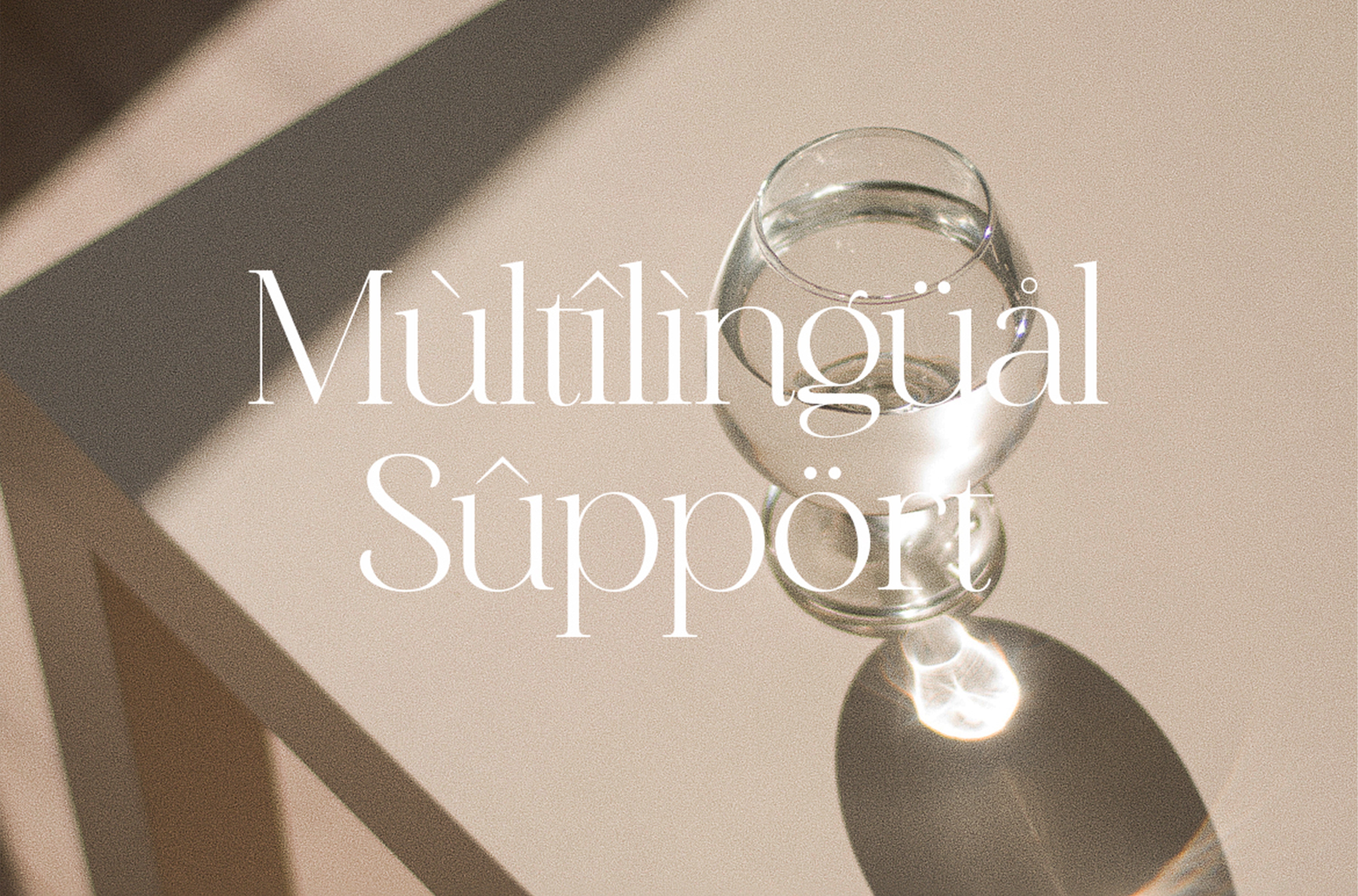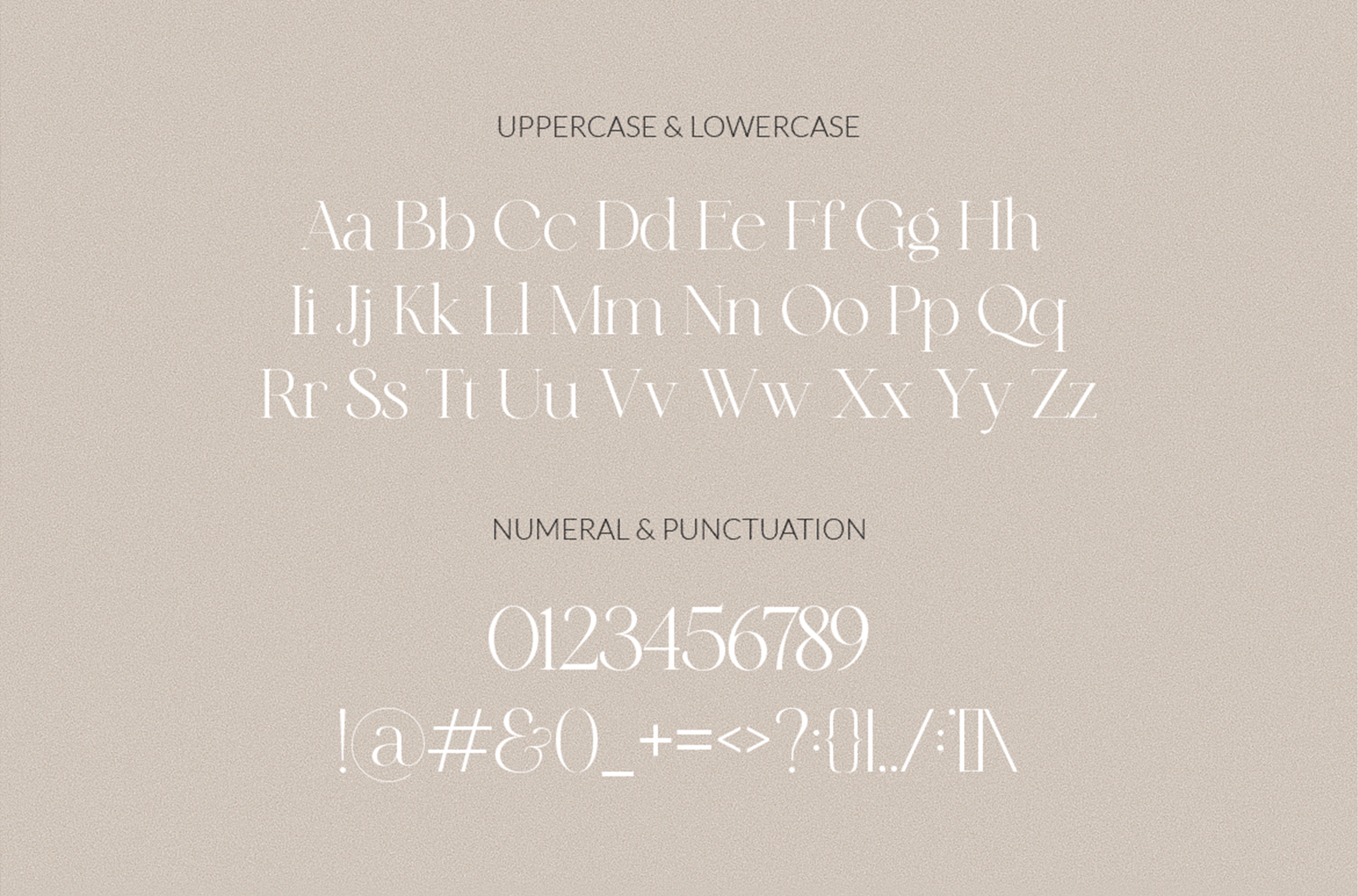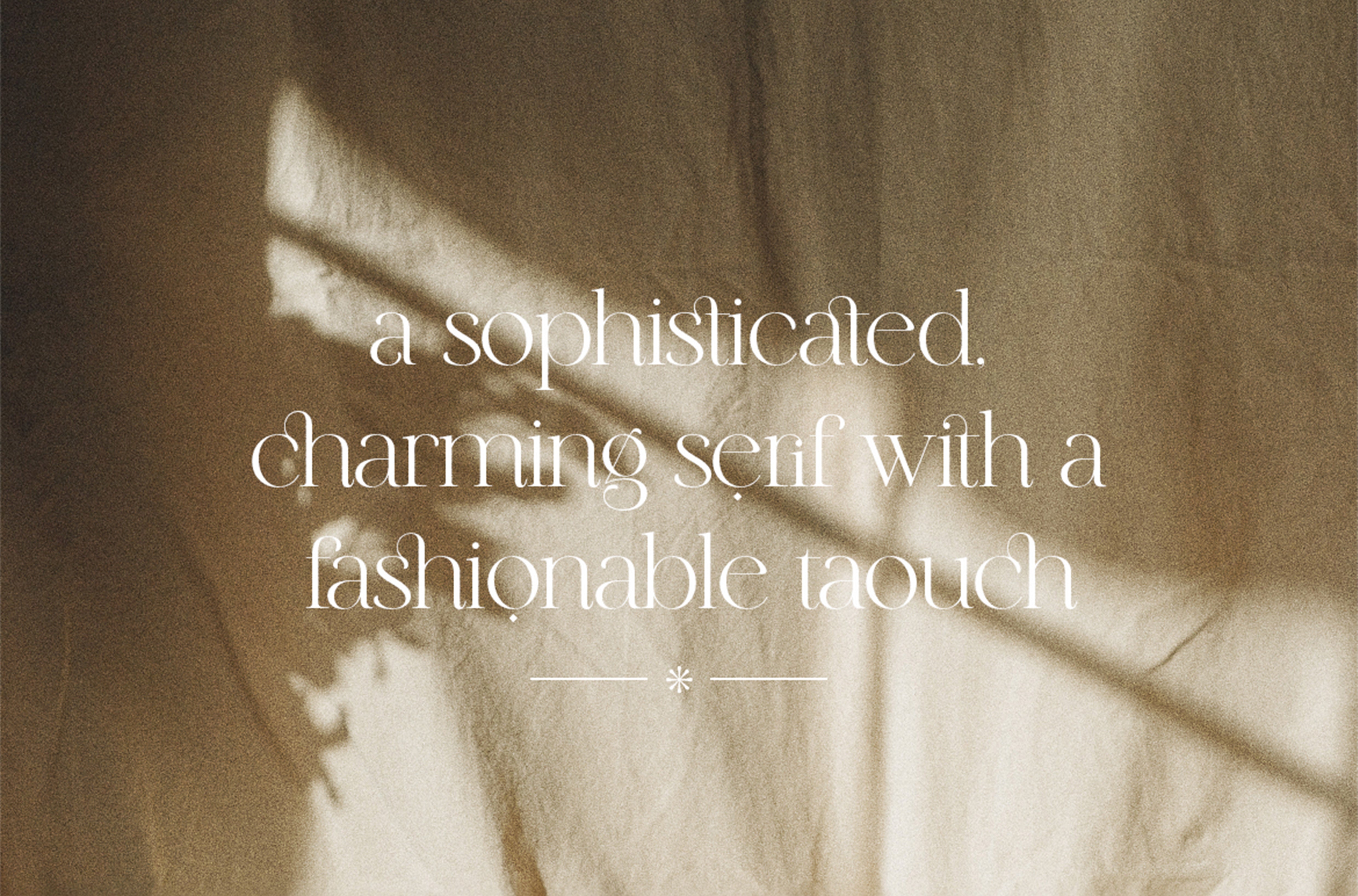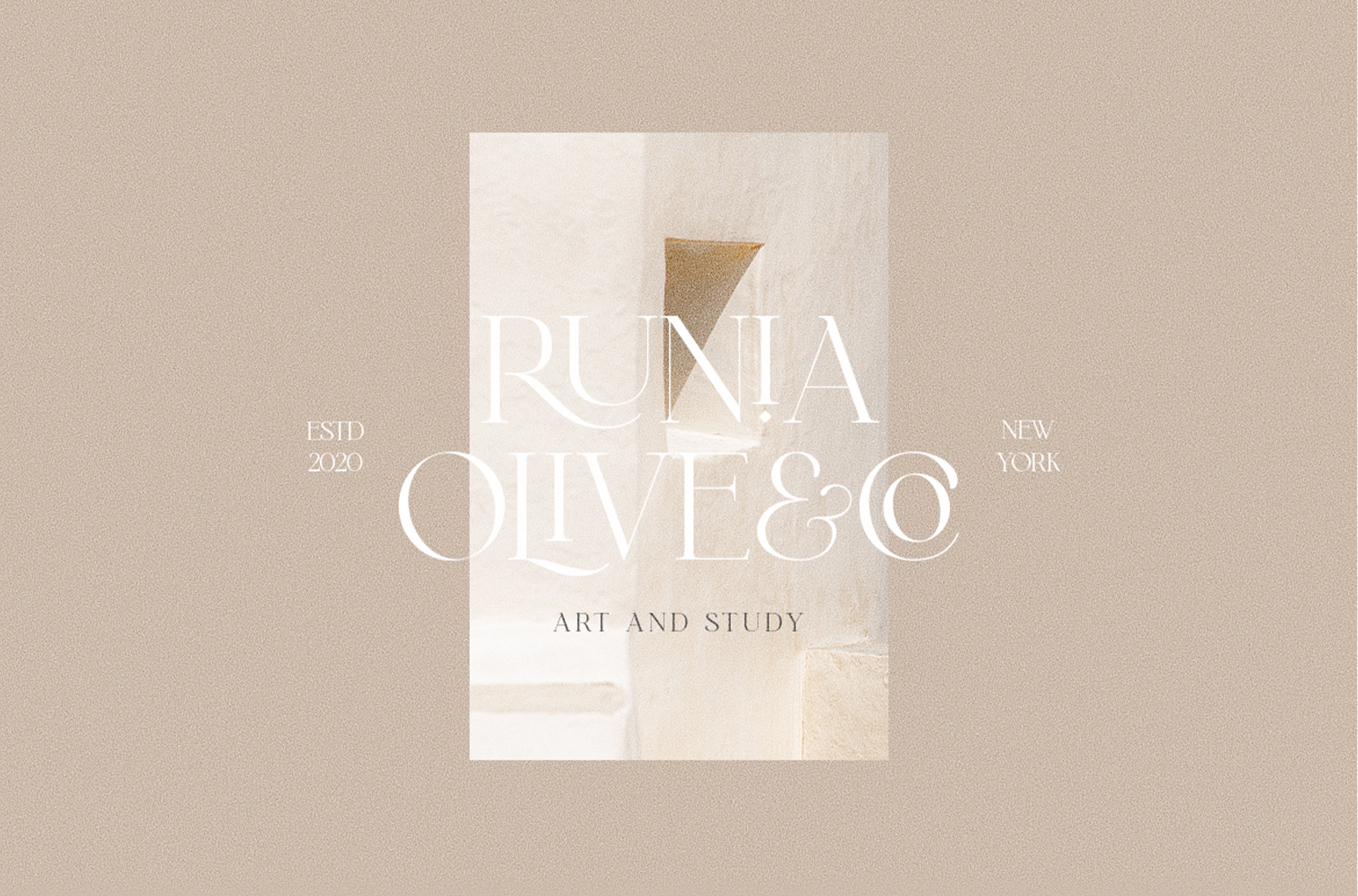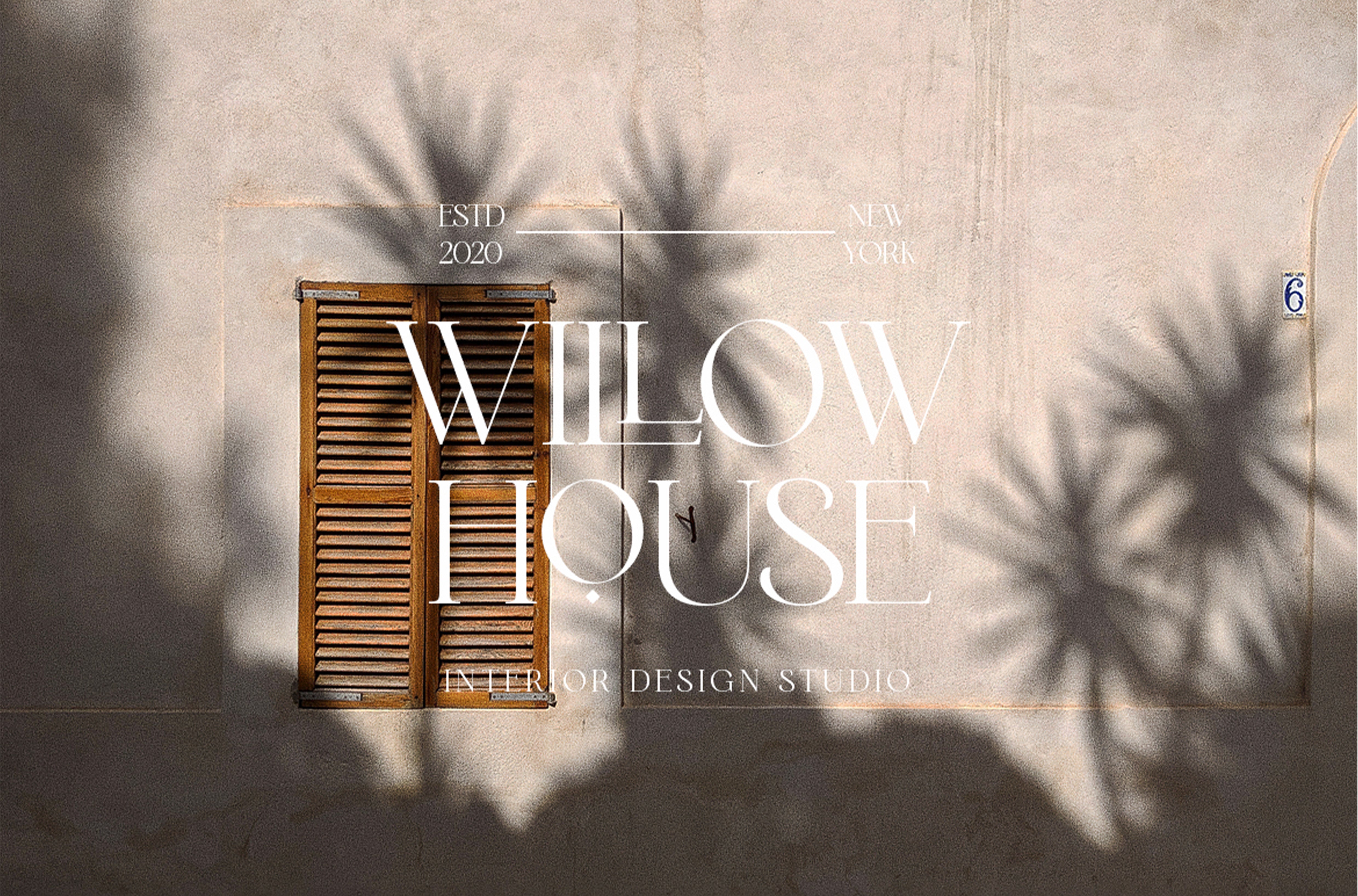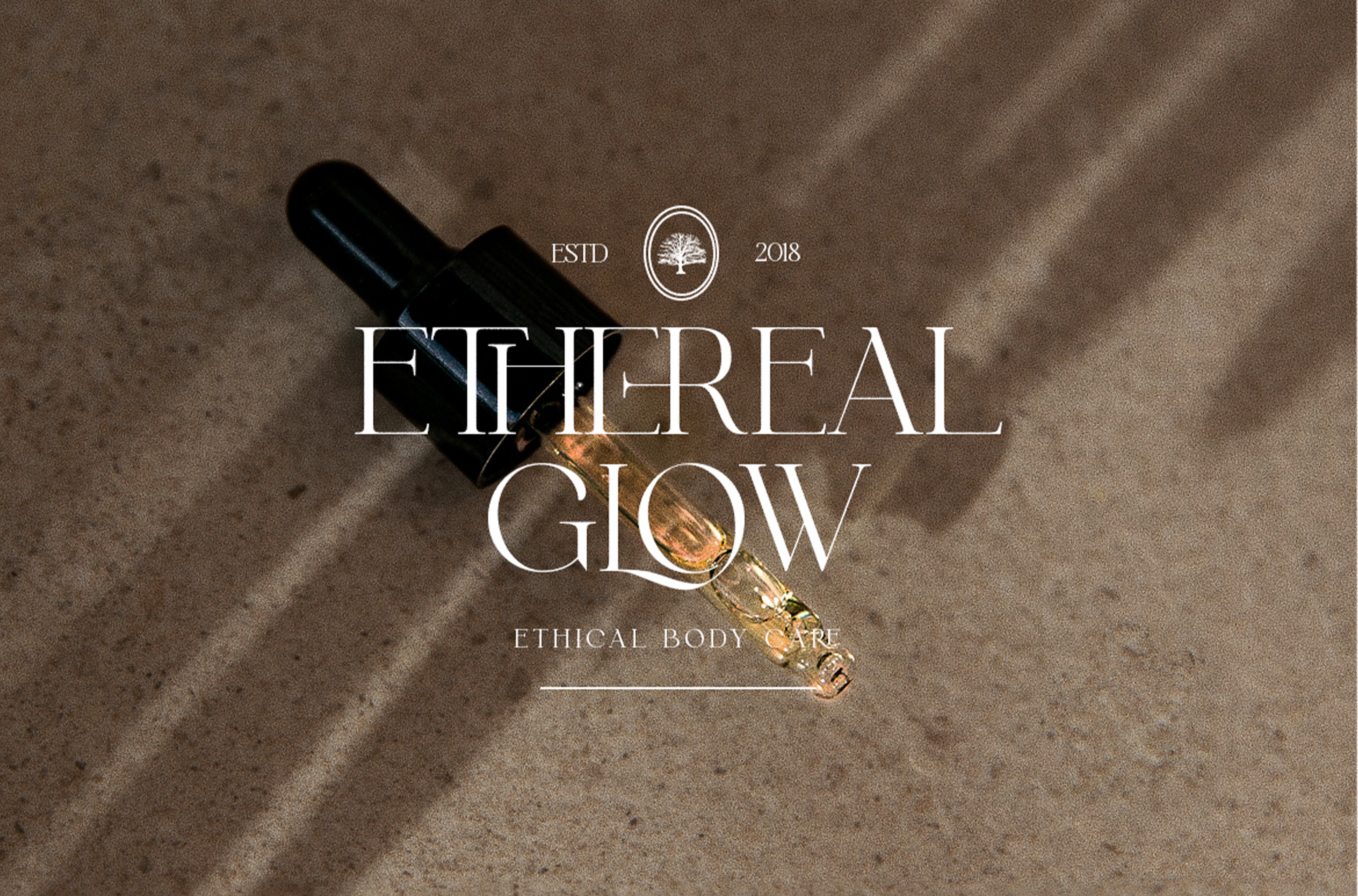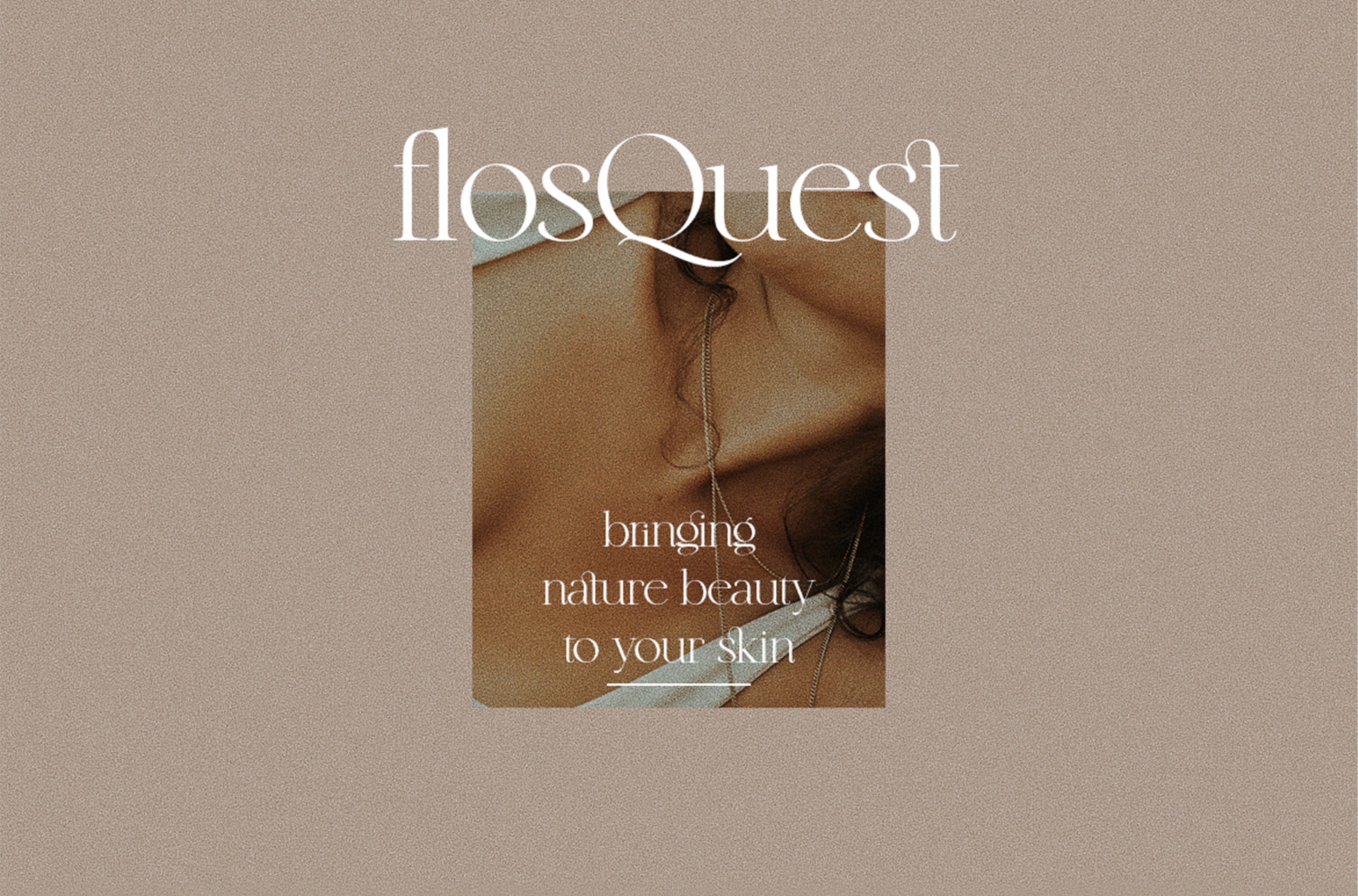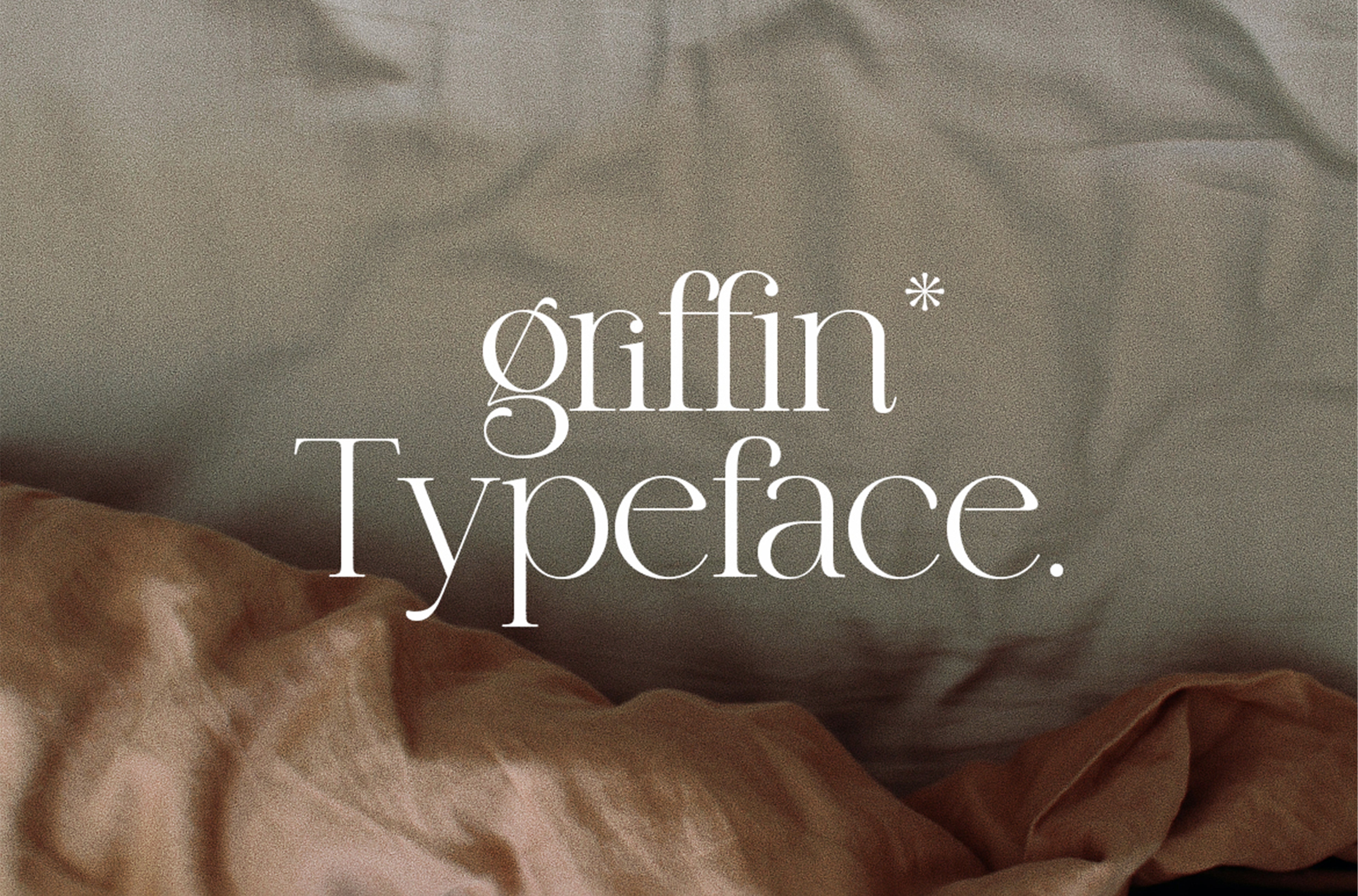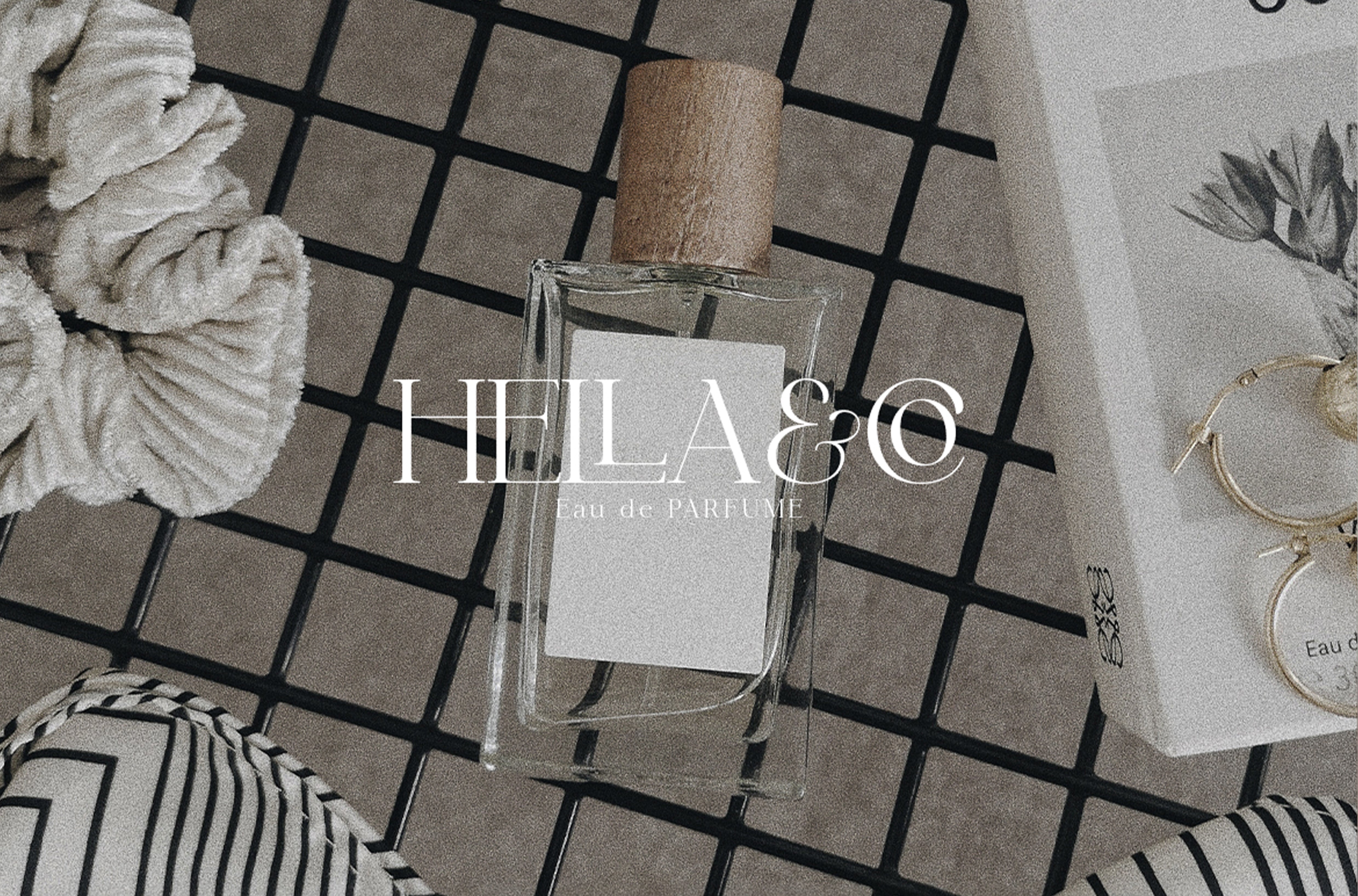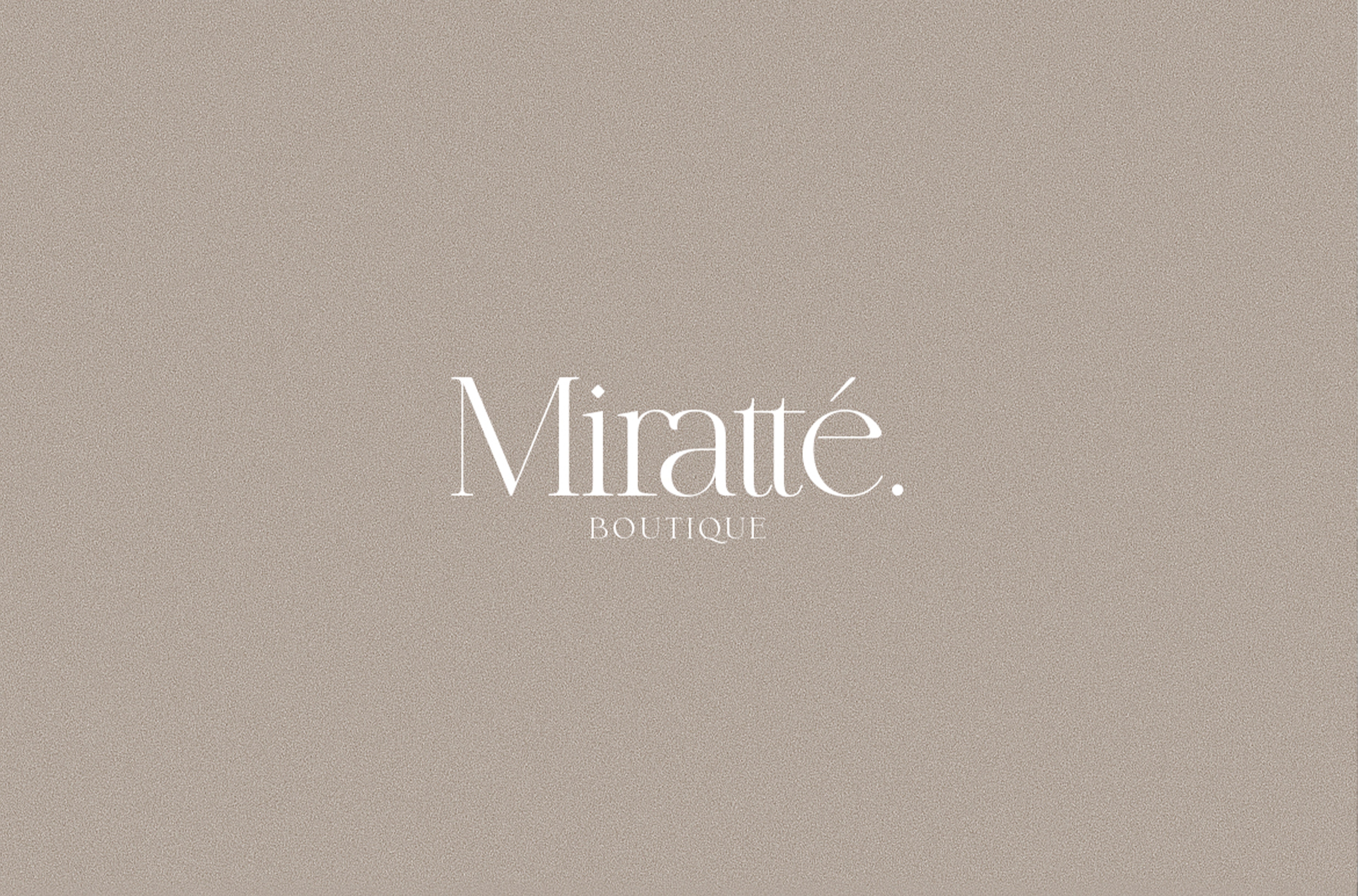
Griffin Serif from dealita studio is an elegant, minimalist modern serif font designed for clarity, sophistication, and timeless appeal. With its clean lines, balanced contrast, and refined structure, Griffin is perfect for fashion branding, editorial design, and luxury packaging that values subtlety and strength.
Ideal for designers who appreciate quiet luxury, Griffin combines minimalist elegance with premium details — including beautiful ligatures and stylish alternates that elevate your typography from simple to exceptional.
Griffin pairs beautifully with neutral sans-serifs or delicate scripts for a modern, curated look. Use it to create stunning designs for: • Fashion and lifestyle branding • Minimalist packaging and product labels • Editorial layouts and magazine headlines • Website typography and social media content • Professional presentations and print materials
Whether you’re building a quiet luxury brand or crafting a clean editorial identity, Griffin delivers the precision and elegance your project deserves.
Design with quiet confidence — with Griffin Serif, the minimalist font that speaks through refinement.